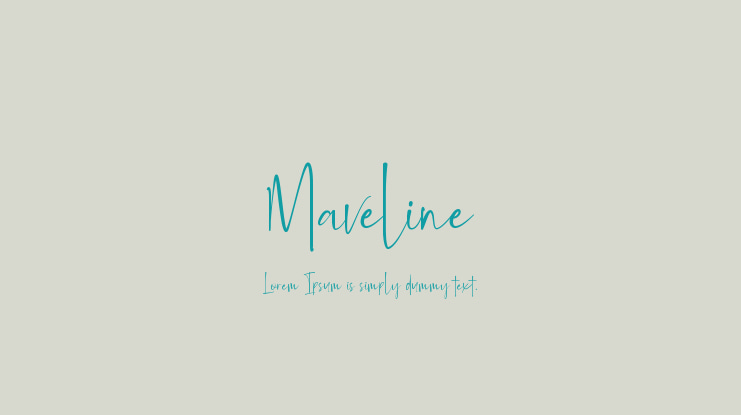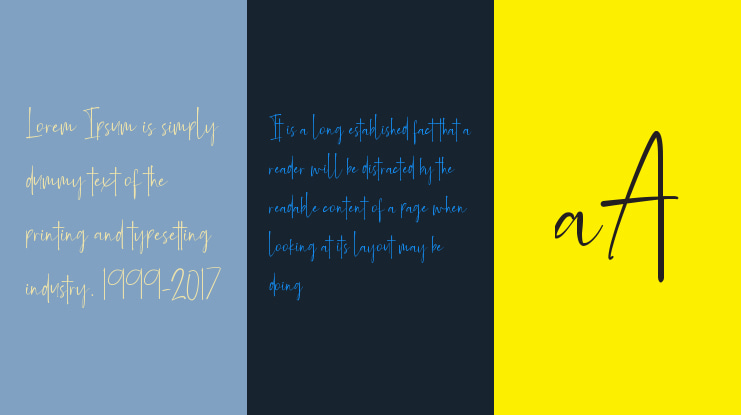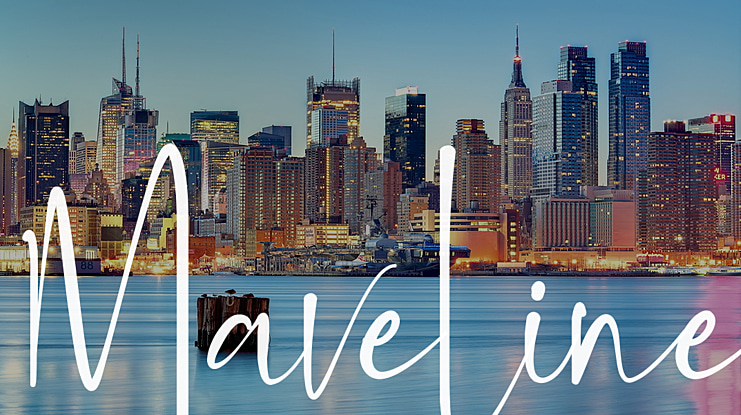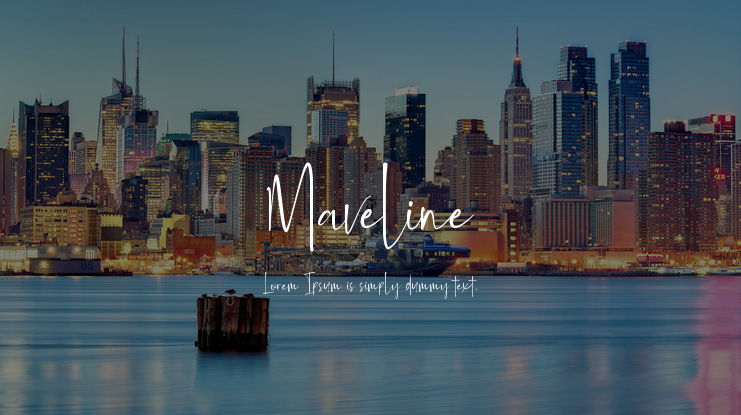
Maveline Font
Maveline is a messy, feminine, carefree script that is perfect for logos, posters, signage, and more! It includes amazing ligatures for a totally unique hand-written feel!
Tons of glyphs
Ligatures
Fonts include multilingual support for; ä ö ü Ä Ö Ü ß ¿ ¡